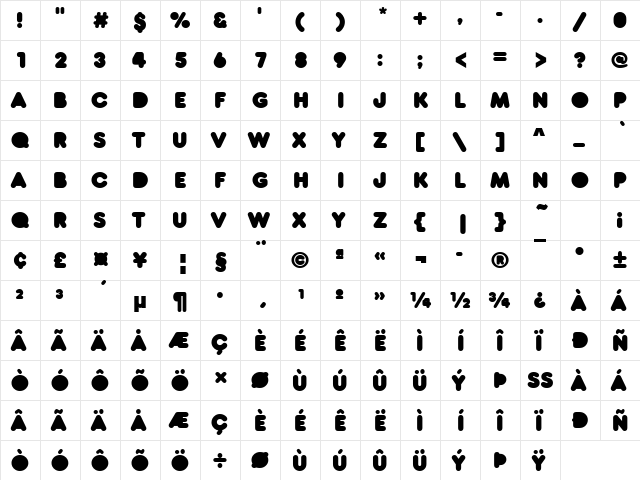
RNS BARUTA BLACK Regular
| Foundry | Yorlmar Campos |
| Designer | Yorlmar Campos |
Design Context for RNS BARUTA BLACK Typeface
RNS BARUTA BLACK is a composed and adaptable typeface that performs quietly and consistently across a wide range of design contexts.